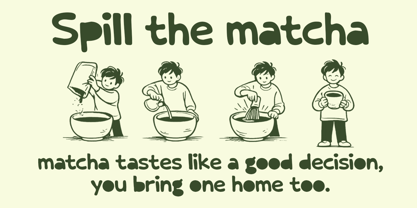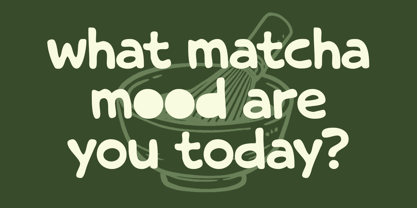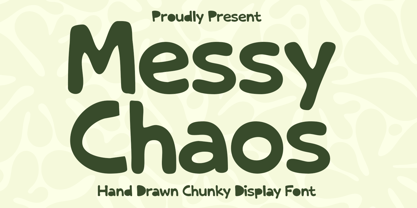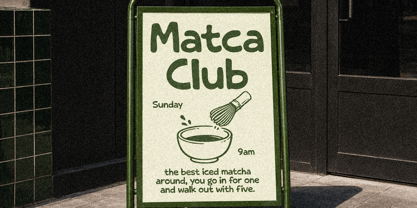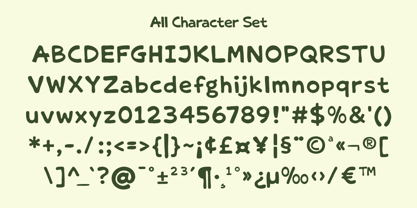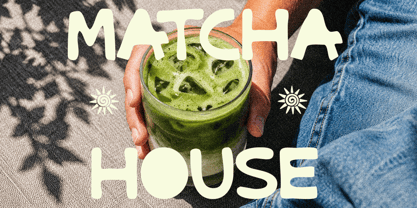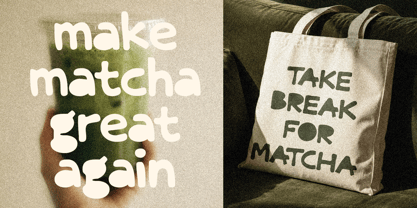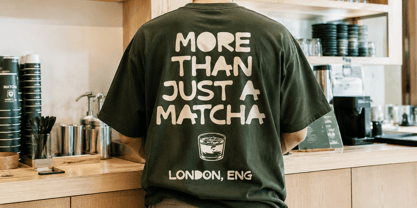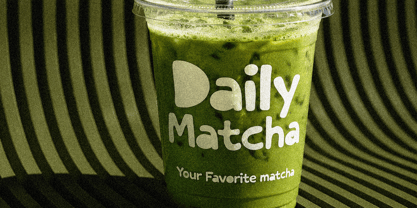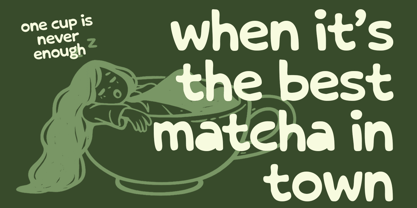
Messy Chaos
Messy Chaos is a hand-drawn chunky display font characterized by heavy rounded strokes, uneven curves, and a casual handmade rhythm. Its playful proportions, wide counters, and slightly wobbly edges contribute to the typeface's friendly, relaxed character. The uppercase letters are bold and compact, while the lowercase forms are soft and rounded. Messy Chaos is ideal for larger sizes, particularly for short words, titles, labels, posters, food-themed graphics, children’s layouts, playful packaging, café branding, social media visuals, and informal merchandise designs.